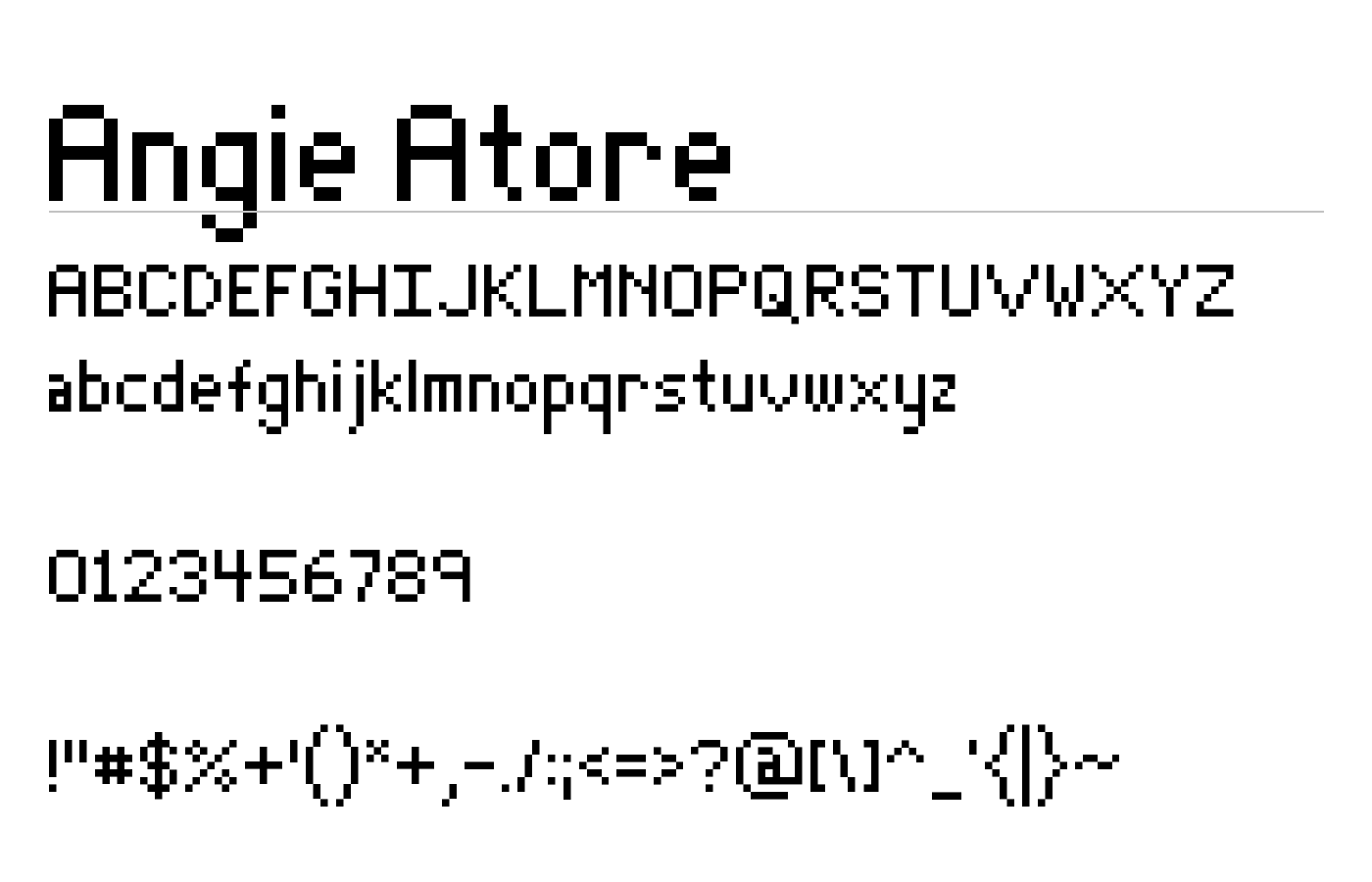
Angie Atore is a pixel-style monospaced font with a clean, geometric look that evokes retro digital displays and early computer text. Its consistent stroke weight and square shapes provide a tech-savvy, modern feel, making it ideal for digital art, coding interfaces, and vintage gaming projects where clarity and simplicity are essential. This font works best in small sizes for on-screen use or stylized graphic design that embraces a nostalgic yet futuristic aesthetic.
Angie Atore Font
About Angie Atore Font